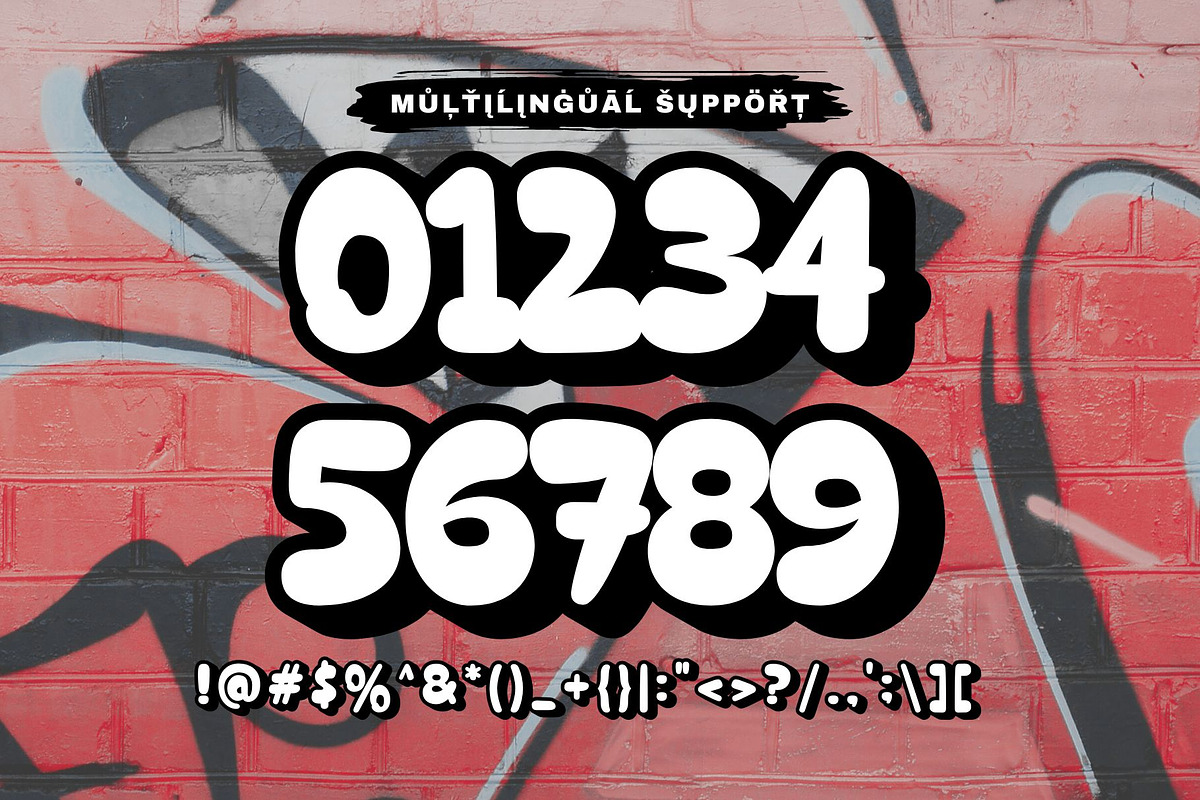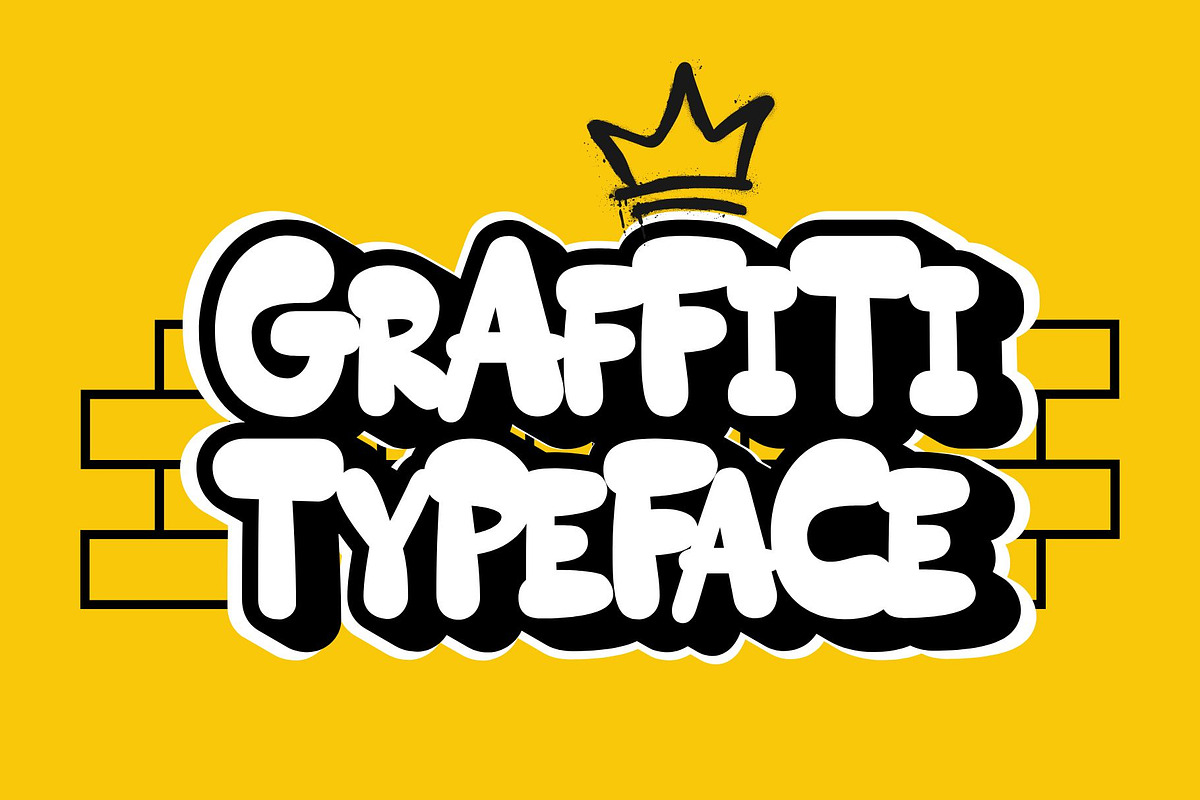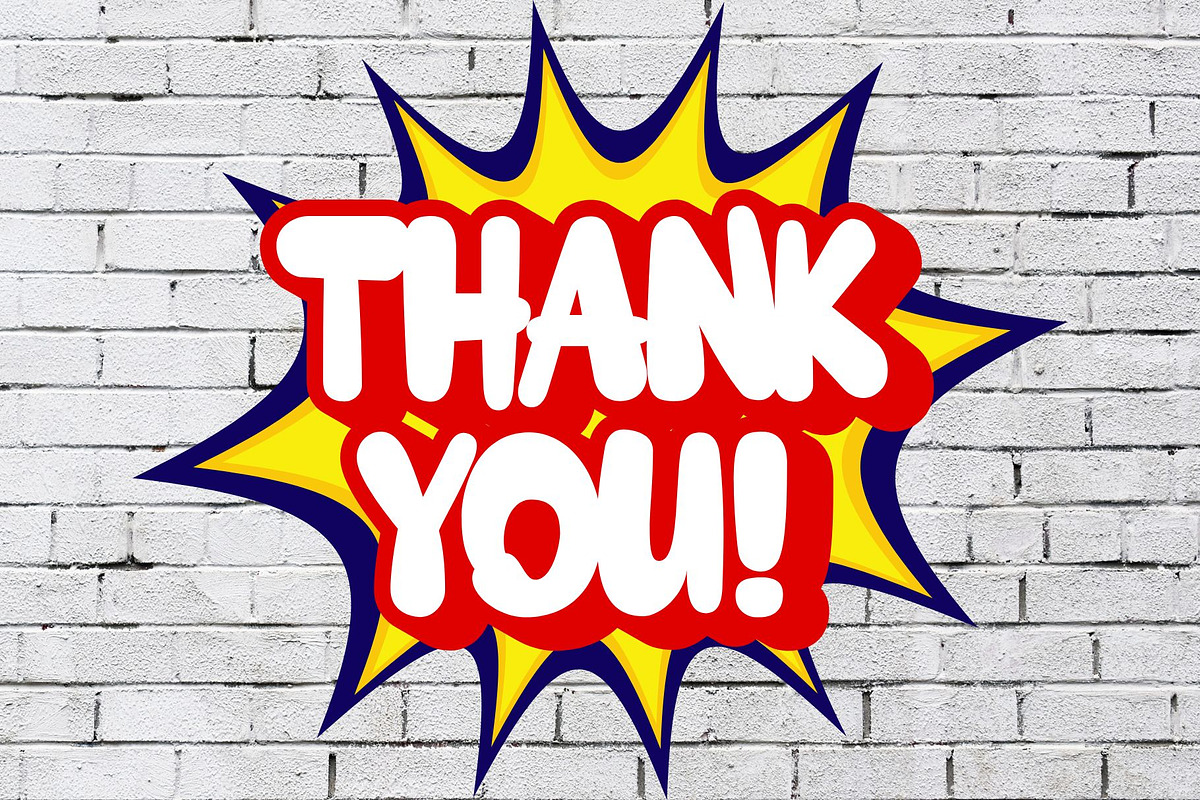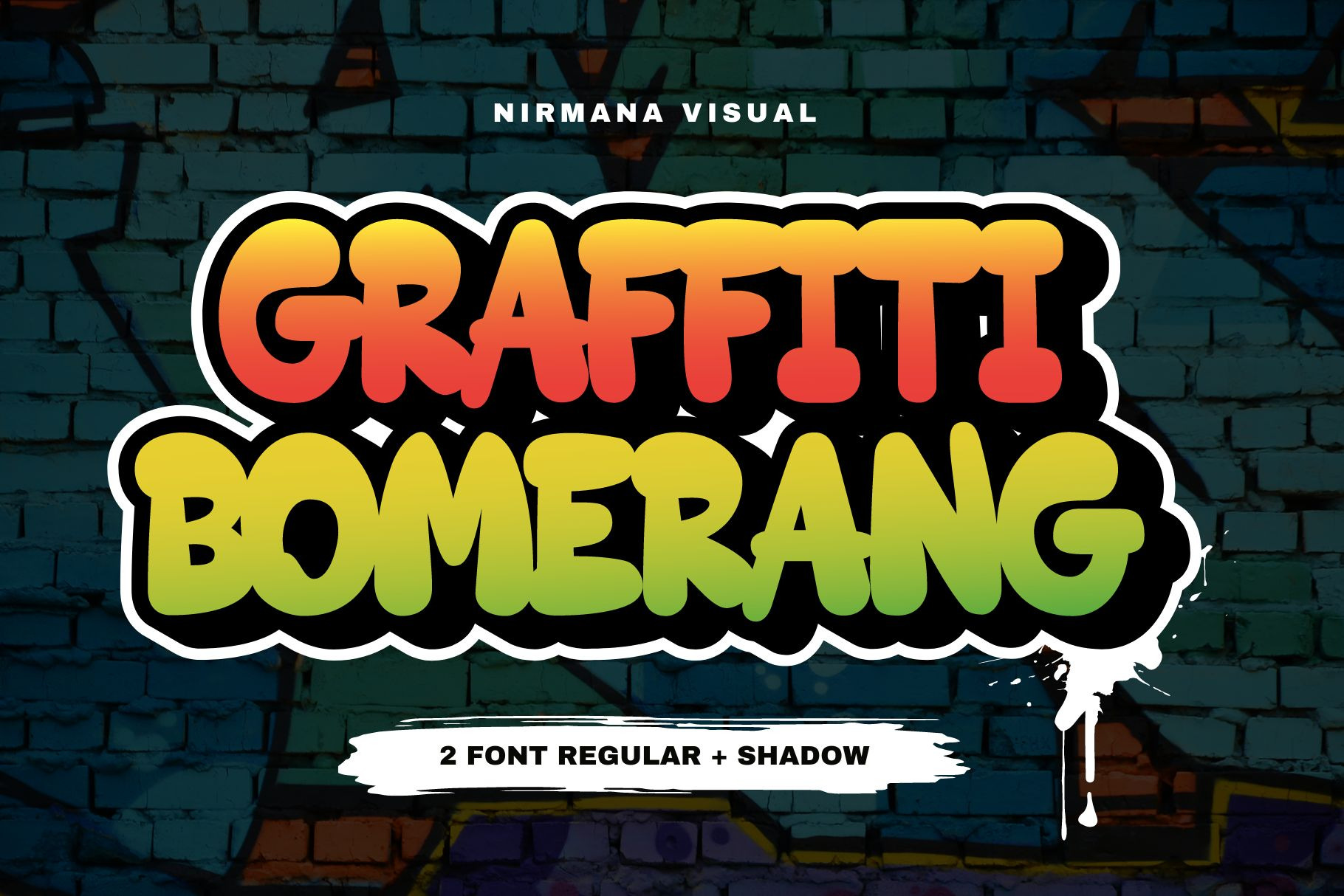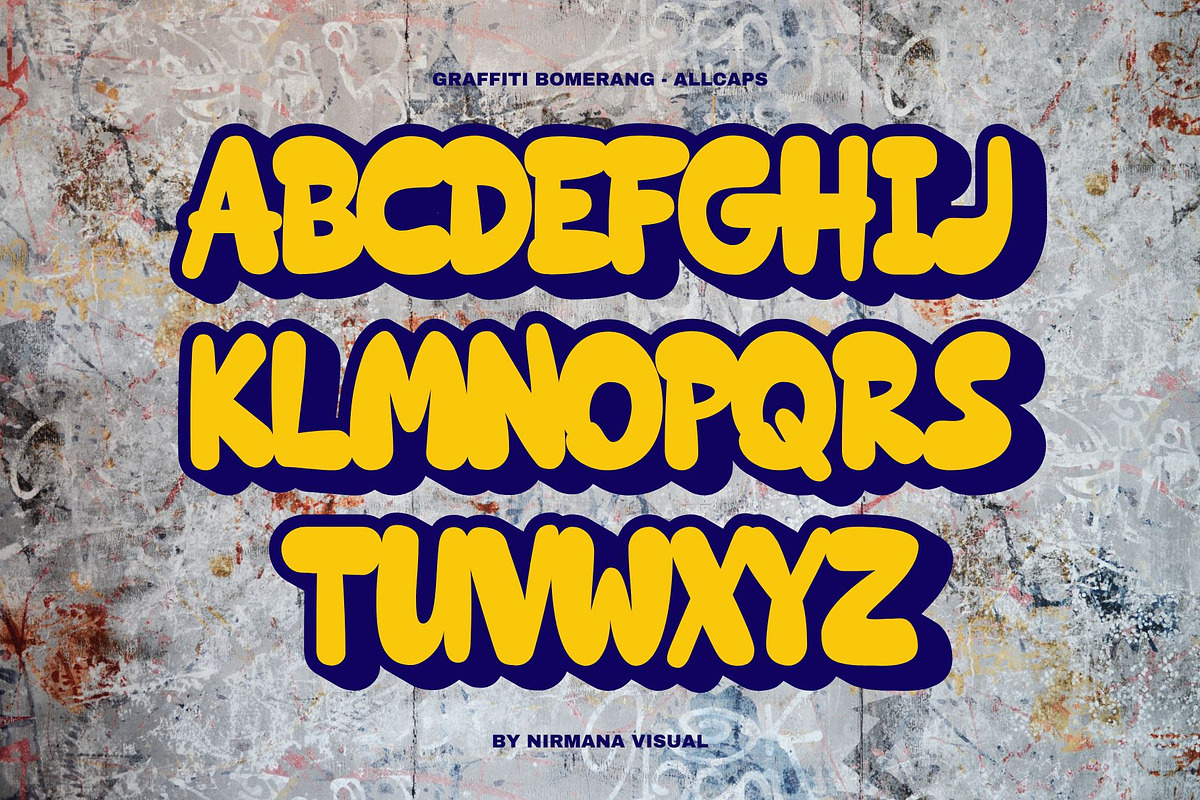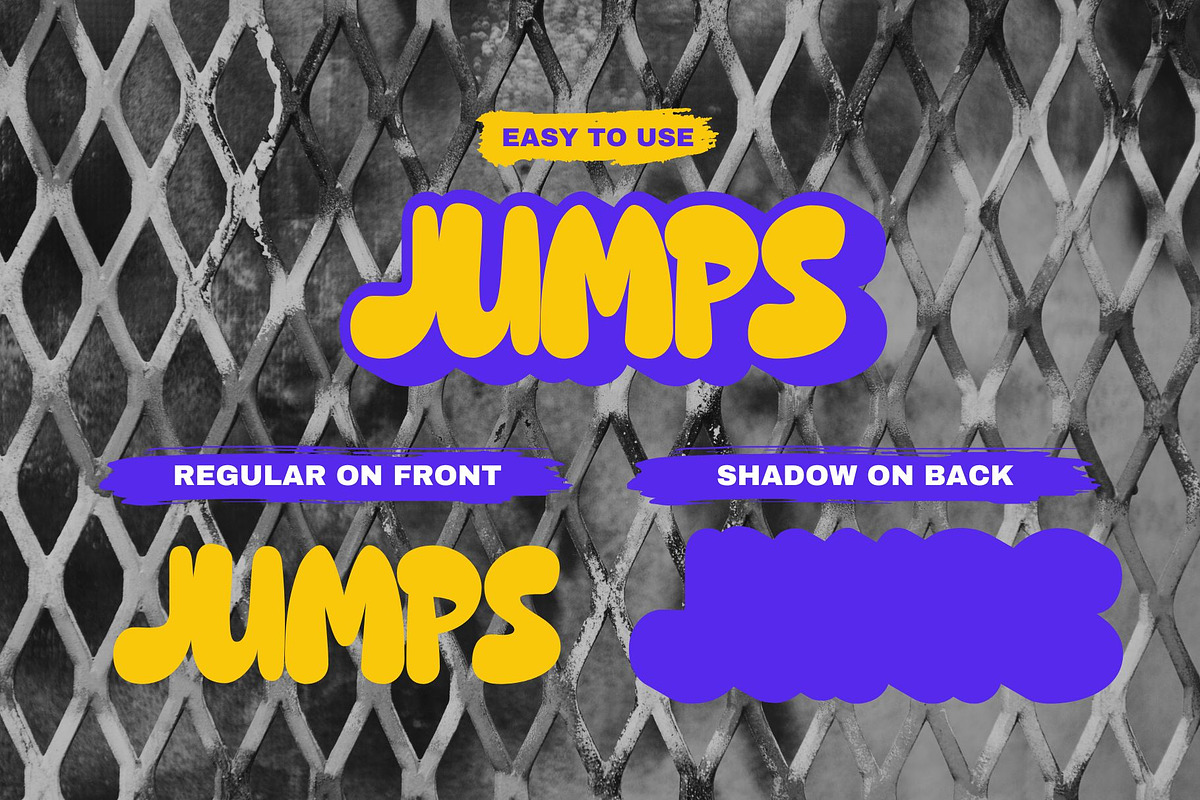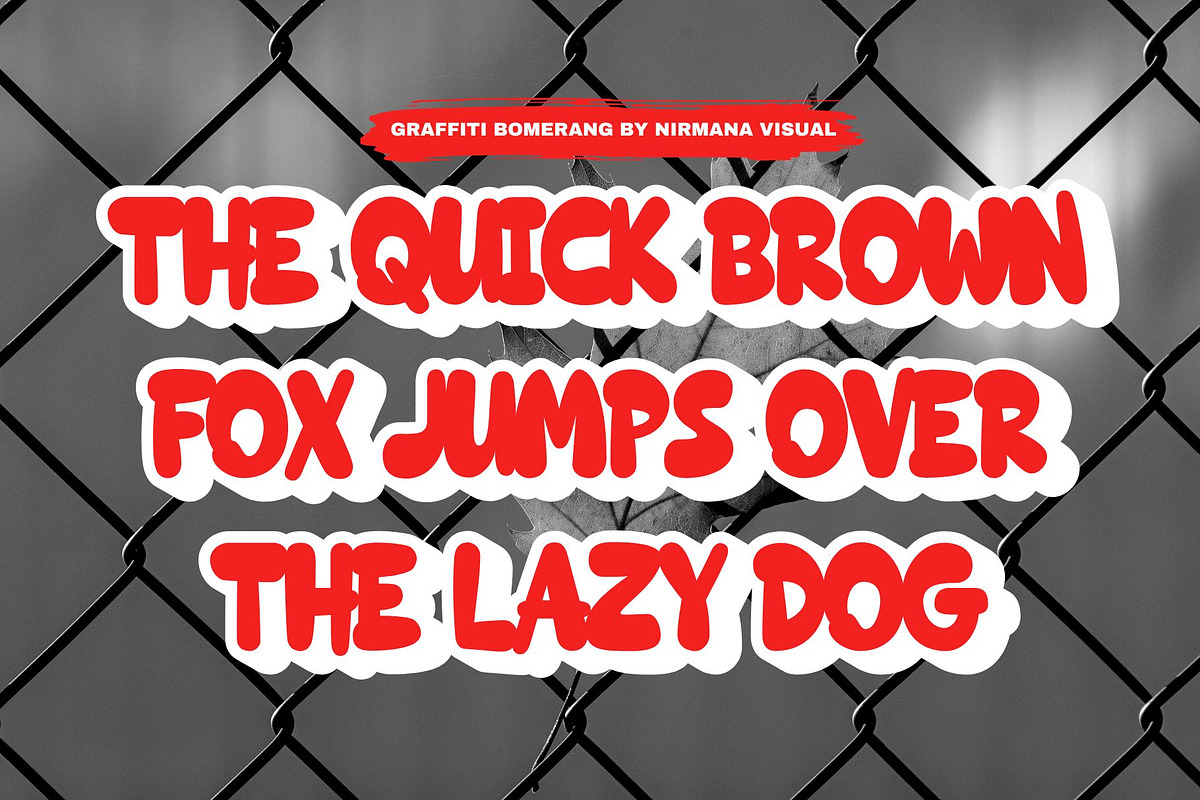
Graffiti Bomerang - Graffiti Font
Introducing Graffiti Bomerang
Inspired by Graffiti style Design, with 2 Style :
- Shadow
Graffiti Bomerang offers beautiful typographic harmony for a diversity of design projects, including logos & branding, social media posts, advertisements & product designs.